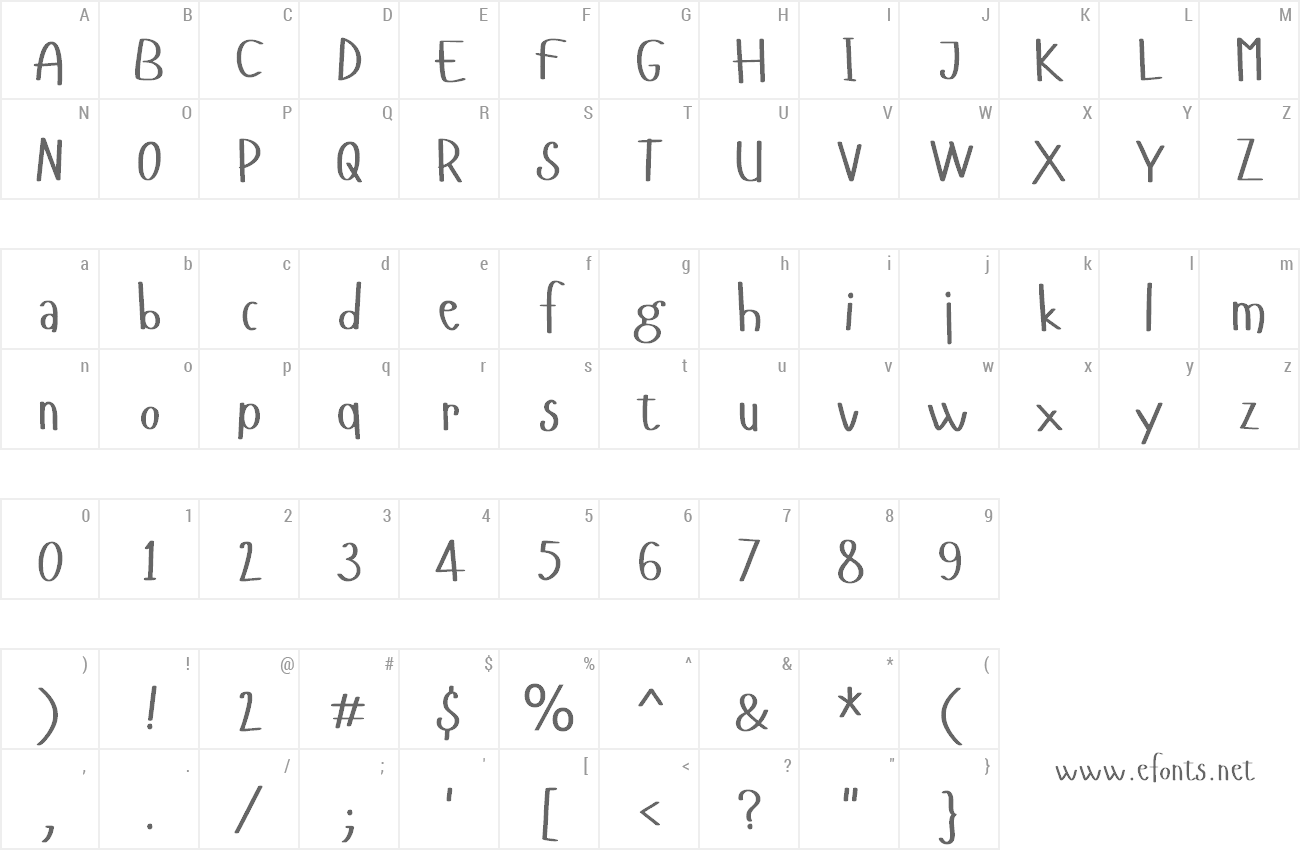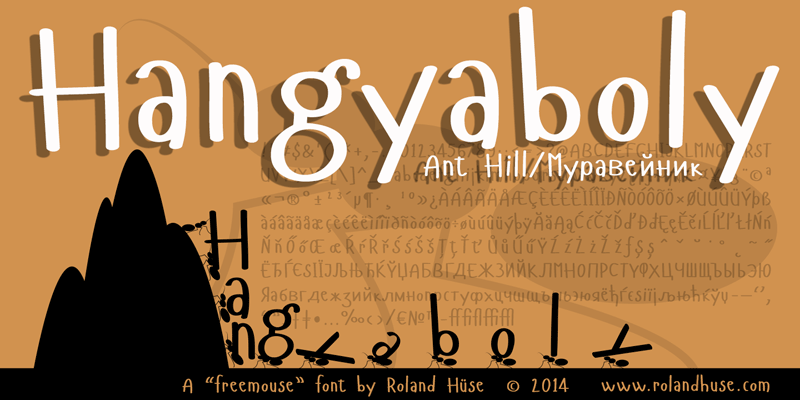
Preview and download Hangyaboly Font. Created by Runes & Fonts in Fancy Cartoon styles with Free for personal use license.
HANGYABOLY is a "freemouse" experimental cartoonish font, I drew the letters directly and spontaneously into the font software with the mouse (thats what I call "freemouse", after "freehand"). No scratch, no background tracing. It means Ant Hill, I named it after the "g" what reminded me an ant. This font is free for PERSONAL use only. For any commercial use (anything you make money from), you must send a paypal donation to myhandwritings@gmail.com. This is almost a full version, with Central and Western European accents and letters, plus Cyrillic! Feel free to contact me via myhandwritings@gmail.com also about the following: - If it does not cover the language extension you specially needed (some are missing though) - Discovering kerning problems while using - Or any other question or feedback. Thank you & I hope you like this font, Roland |